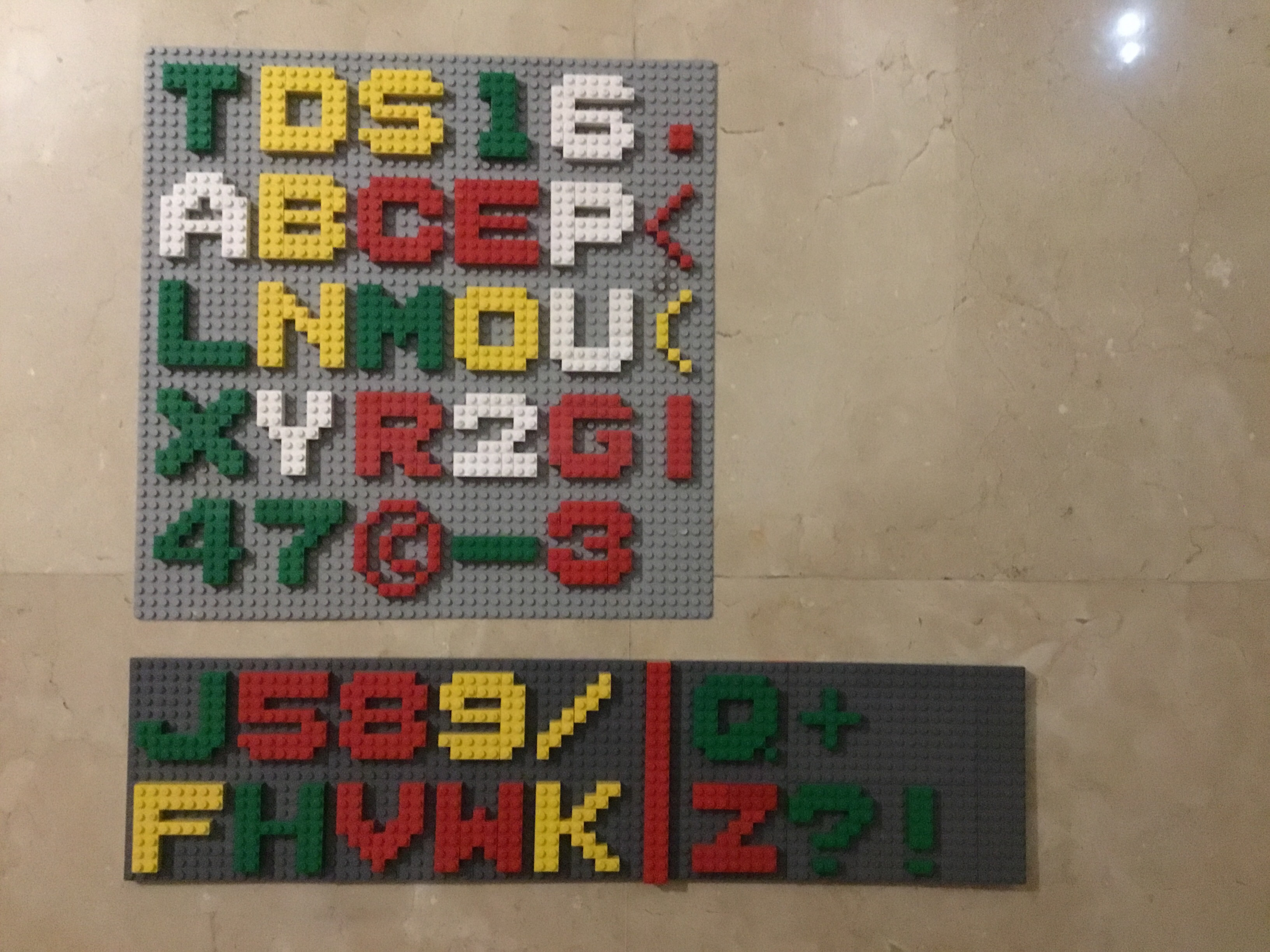
A LEGO Recreation that I made of the character fonts that was used in arcade titles that ran on the Taito SJ System arcade hardware like Jungle Hunt, Elevator Action, Front lineNote that the Q, +, Z, ?, ! are custom ones created in the style of the Taito SJ System arcade hardware fonts